Hermann Zapf, the designer behind popular typefaces such as Palatino and Optima, was born in Nuremberg, Germany, almost 100 years ago. The typeface that bears his name, Zapfino, is in many ways his most personal design. A calligraphic font with the elegant loops and strokes worthy of a dandy, Zapfino is based on a sample of Zapf’s own handwriting from 1944, which was then turned into a typeface almost 40 years later.
But what if Hermann Zapf had been born in the Arab world, instead of Germany? What would his most personal typeface look like then?
Released today, Zapfino Arabic is an addition to Monotype’s Zapfino family that answers that question. Created by Arabic typeface designer and Fast Company‘s Most Creative People 2012 winner Nadine Chahine in consultation with Zapf himself, Zapfino Arabic aims to translate the distinctive elegance and dapper grace of Zapfino into a Arabic counterpart that still feels harmonious with the Latin version.
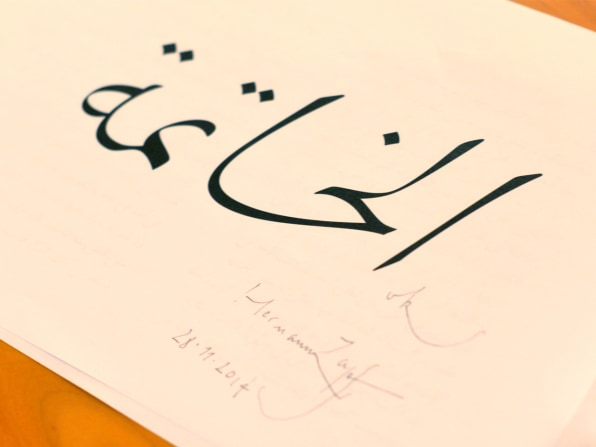
Chahine is no stranger to adopting Western fonts for an Arabic-speaking audience: she created the Arabic version of Neue Helvetica. Design details of Neue Helvetica had clear Arabic counterparts, she says, but not so with Zapfino. “Zapfino is just so iconic and distinctive in its form,” she tells me. “It’s a whole different animal.”
When you adapt a Western typeface for the Arabic language, the main goal is to create a typeface that doesn’t just have a similar design, but is harmonious with the original. In other words, you should be able to put Zapfino and Zapfino Arabic side by side, and they should look like they were written by the same hand. Because Zapf himself does not speak or write Arabic and simply consulted on the typeface’s overall feel, the nuts and bolts of the design fell to Chahine.
Zapfino is as modish as it is relaxed: Letters like “S,” “B,” “D,” and “T” all lean forward to the right with a deep, almost rakish angle. And that angle was the first hurdle Chahine needed to overcome. In the Latin alphabet, we write letters from left to right, but in Arabic, script is written from right to left. That means that Zapfino’s rakish forward slant would become a recumbent backward slant in Arabic. It looked weird in Arabic calligraphy. “It’s like leaning your seat back while flying coach: in Arabic calligraphy, the characters recline a little bit, but we needed it to recline a lot,” she tells me. “We needed business class caliber reclining to make it work.” After a lot of experimentation, Chahine ultimately settled on an angle that she thought worked well in Arabic, while still being harmonious with Zapfino Latin: a good middle-ground between business class and coach.
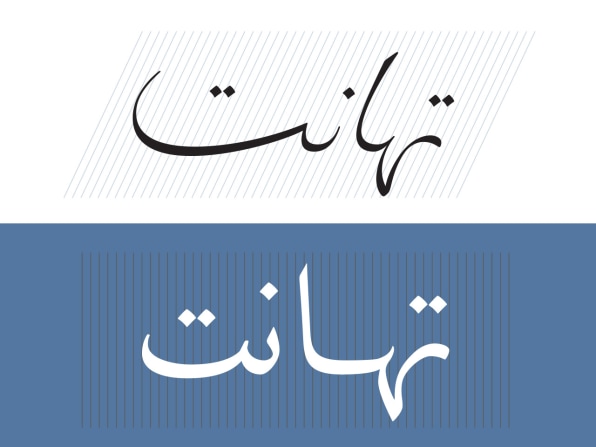
Another problem was character stacking. “In Latin, all characters sit side by side. Nothing ever really comes on top or below,” Chahine explains.” But in Arabic, characters stack up on top of one another.” In other words, parts of some characters overhang or underhang others. In English, the equivalent might be writing the word ‘sad’ and having the “A” written above the “D.” In Arabic, stacking makes text look very busy, which is at odds with Zapfino’s more relaxed attitude.
For Zapfino Arabic, Chahine needed to figure out how to reconcile Zapfino with Arabic’s penchant for having characters topple and tumble all over each other. As with Zapfino’s slanting, Chahine tackled the problem by experimenting with different combinations. At first, she experimented with a traditional Nastaaliq style, which stacks characters diagonally, but this looked unharmonious with the Latin version of Zapfino. Instead, Chahine turned to another Arabic calligraphy style called Naskh, which allows for a horizontal stacking style. That style looks similar to Zapfino Latin’s side-by-side character spacing.
Asked to summarize her technique in adopting typefaces for an Arab audience, Chahine says it’s very much a fly-by-the-seat-of-your pants kind of affair. “Just like Zapfino comes from a Latin tradition, Zapfino Arabic needs to come from an Arabic tradition,” she says. “But you can’t just cut apart Zapfino and rearrange [the letters] into Arab shapes.” Precedents for Zapfino’s defining characteristics needed to be found, researched, and pieced together. “There was a point in the development of Zapfino Arabic where it was really ugly,” she admits. “The characters looked fine individually, but when I put them into words, they looked disgusting.” Ultimately, two years passed before Zapfino Arabic took shape.
Now that Zapfino Arabic is complete, Chahine says that she expects it to be used in many of the same ways Zapfino is used: in greeting cards, in poetry books, on wedding invitations, for printing song lyrics, and more. But while Zapfino, for all its elegance, feels familiar and a little dated to Americans, like a worn-in tuxedo, Chahine expects it to feel much more modern and progressive to Arab eyes. “There’s just nothing like Zapfino in Arabic,” she tells me. At least, not until now.